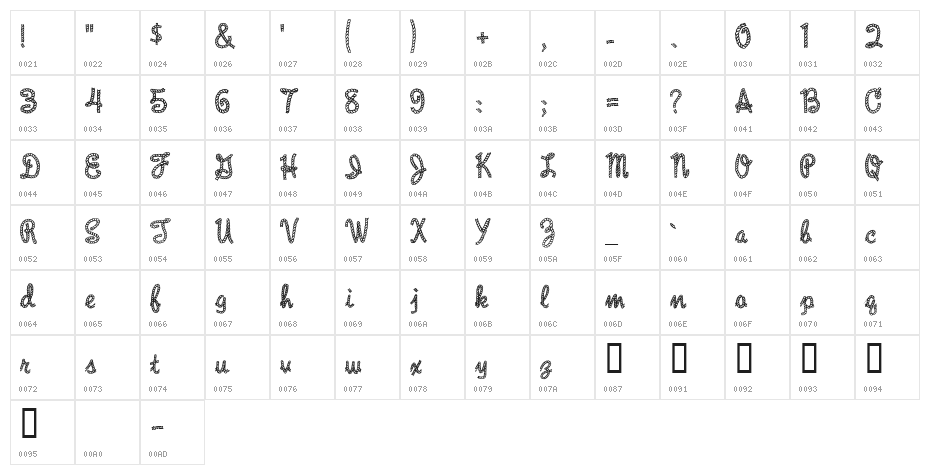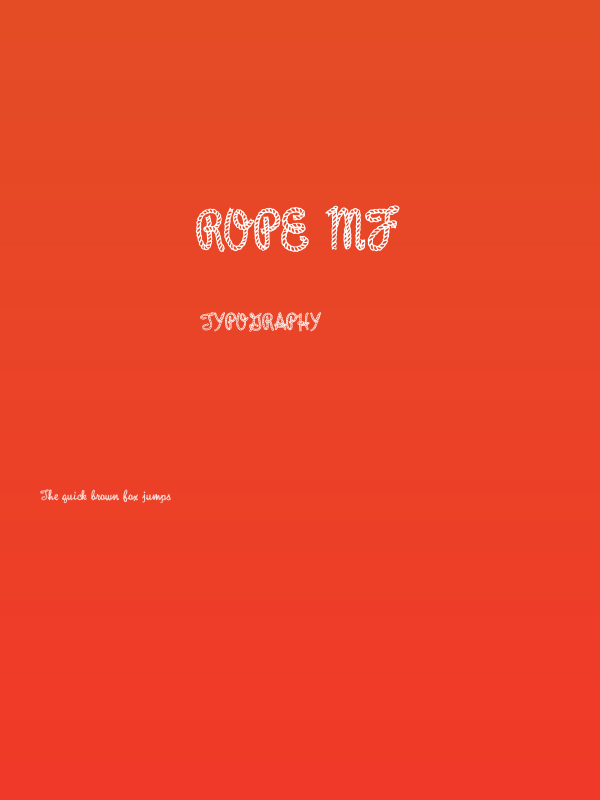
Rope MF Font
Rope MF Description
This font features a unique and playful design that mimics the appearance of twisted rope. Each character is intricately detailed to resemble a rope texture, giving it a three-dimensional and tactile feel. The letters are bold and have a consistent thickness throughout, which enhances the rope illusion. This decorative style is both eye-catching and whimsical, making it suitable for creative and informal applications. The font includes a full set of uppercase and lowercase letters, numbers, and a variety of special characters, all maintaining the rope motif. Its distinct style makes it stand out, perfect for projects that require a touch of fun and creativity.
| Proposed Projects | Ideal for children's book covers, nautical-themed events, playful branding, and creative posters. |